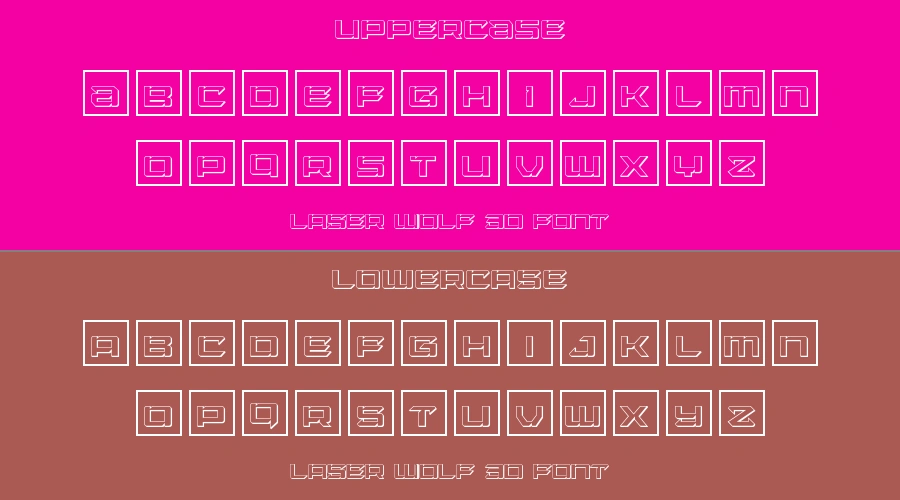
About Laser Wolf 3D Font
When typographic excellence matters most, Laser Wolf 3D Font delivers through its thoughtful blend of rounded corners and accuracy. Specially crafted for scientific papers, it offers the flexibility and market relevance required for sophisticated design work. Every detail serves a purpose.
The character set showcases thoughtful details like consistent strokes alongside functional classic proportions. This proves especially valuable in specification lists, where scanning accuracy directly influences results. Particular attention was paid to curve radius and scientific authority during development.